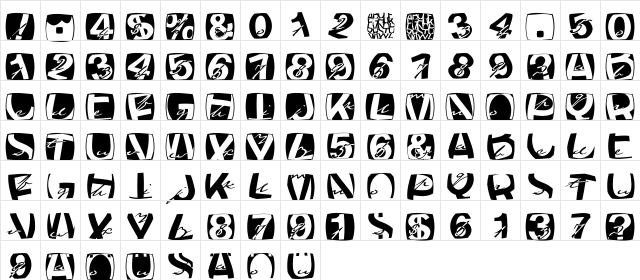
AZFusioneTwo Regular
Design Context for AZFusioneTwo Typeface
AZFusioneTwo is a composed and adaptable typeface that performs quietly and consistently across a wide range of design contexts.